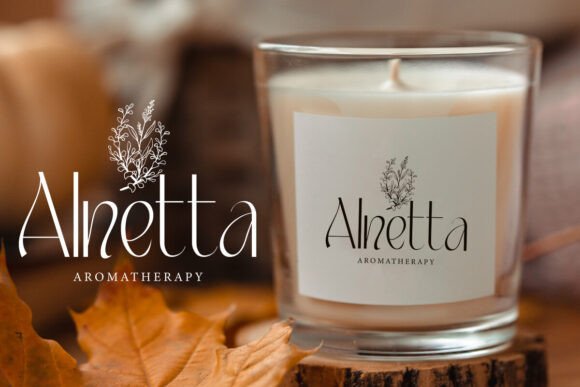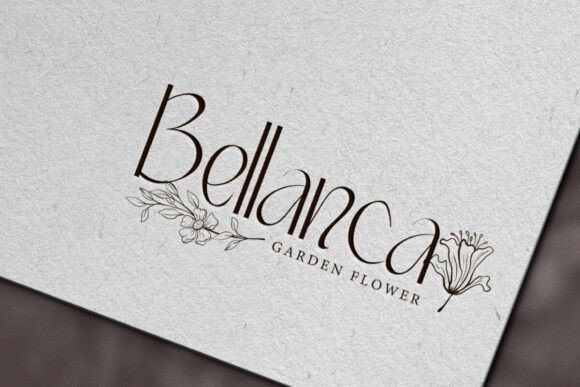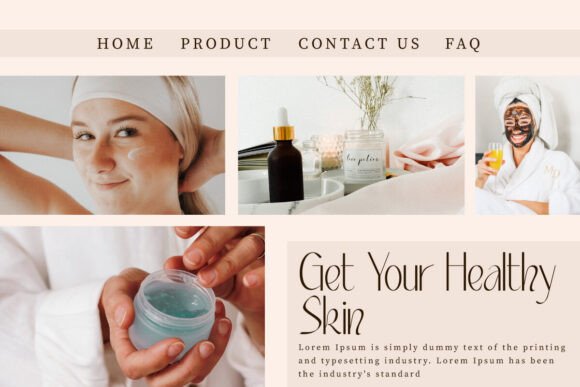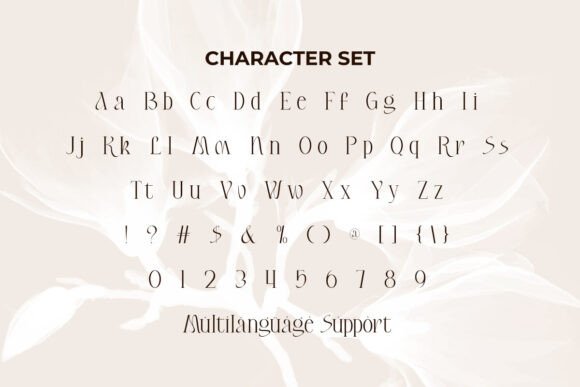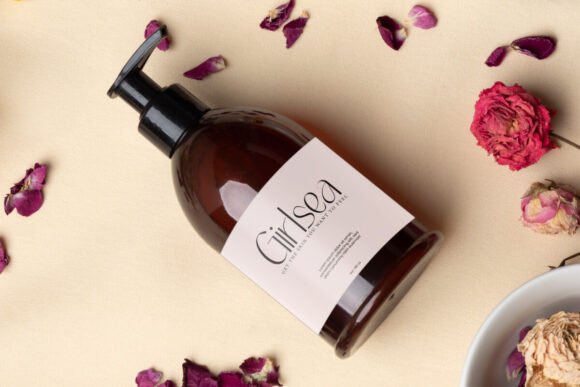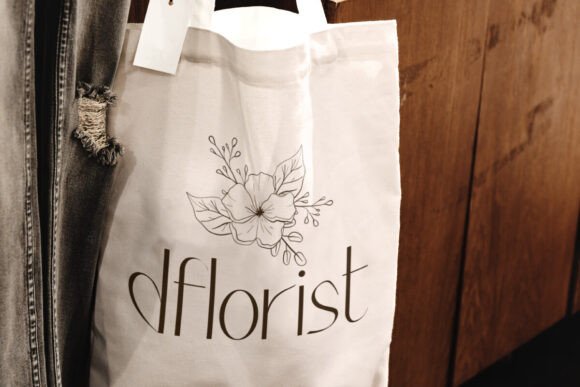
Introducing Besmooth Font: Elevate Your Designs with Elegance and Sophistication
In the world of typography, fonts play a crucial role in conveying the tone and personality of a brand or design. For designers and crafters looking to add a touch of elegance and sophistication to their work, Besmooth Font is an excellent choice. This unique, fancy yet elegant sans serif display font is designed to make your designs stand out with its thin lines and beautiful curves that resemble flowing water.
What Makes Besmooth Font Special?
Besmooth Font is not just another font; it’s a design element that can elevate your projects to a new level of sophistication. Here are some features that make Besmooth Font special:
- Unique Sans Serif Design: Besmooth Font boasts a sans serif design that is both modern and clean. Its unique style ensures that your designs look fresh and contemporary.
- Elegant and Fancy: The font’s elegant and fancy appearance makes it perfect for designs that require a touch of sophistication. Whether you’re working on a luxury brand image or an elegant invitation, Besmooth Font fits the bill.
- Thin Lines and Beautiful Curves: The thin lines and beautiful curves in Besmooth Font give it a fluid, dynamic look that’s reminiscent of flowing water. This feature adds a level of refinement and grace to any design.
- Enhances Readability: Despite its elegant and thin lines, Besmooth Font remains highly readable, making it suitable for both headings and body text.
- Unique Appeal: The distinctive look of Besmooth Font ensures that your designs will stand out from the crowd.